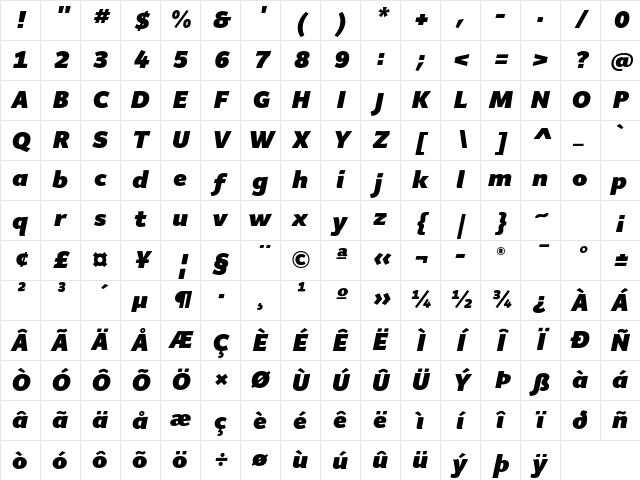
Complete Giacomo MD Black Italic glyph index. Displaying only characters natively supported by Giacomo MD Black Italic font.
Giacomo MD is a composed and adaptable typeface that performs quietly and consistently across a wide range of design contexts. The slanted form adds forward momentum and visual energy.